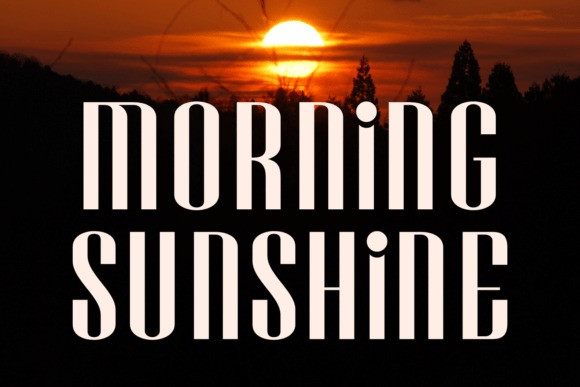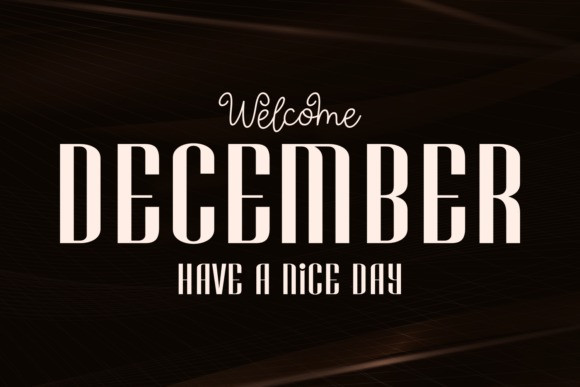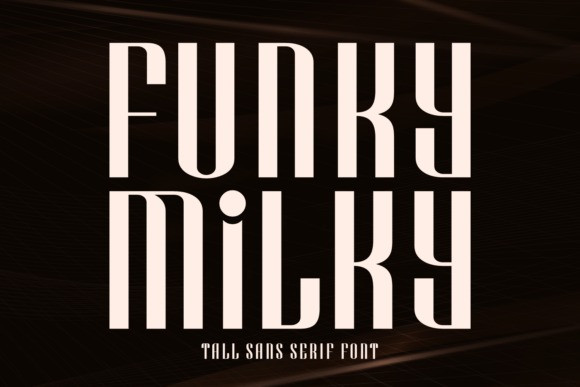
Funky Milky Font
Funky Milky Font is a distinct and impactful tall sans serif display font that features an ultra-condensed, vertical design. Its unique aesthetic blends modern simplicity with a retro, almost Art Deco-inspired structure, making it highly stylish and attention-grabbing.
This font is perfect for fashion editorials, cosmetic branding, dramatic headlines, poster design, and any project that requires a powerful, elegant, and exceptionally vertical display typeface.